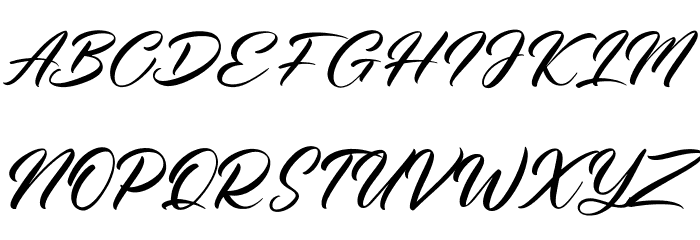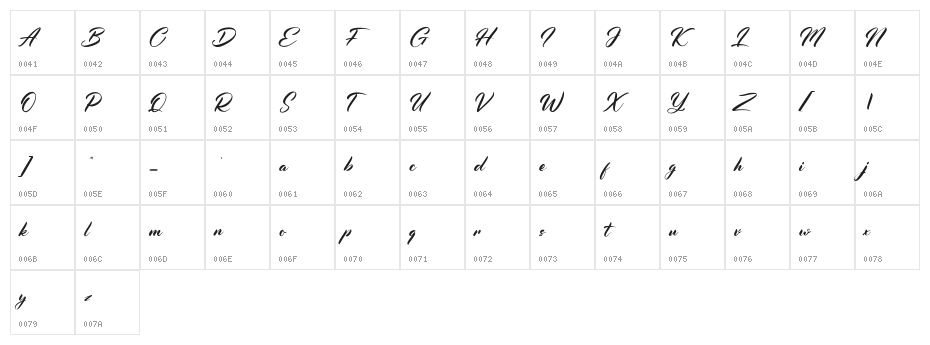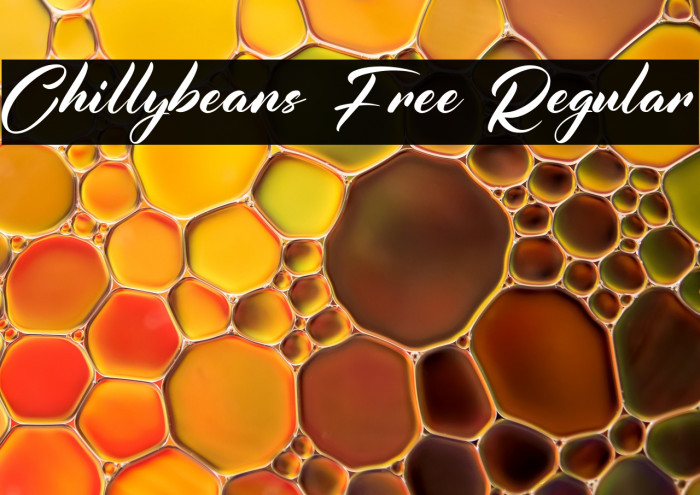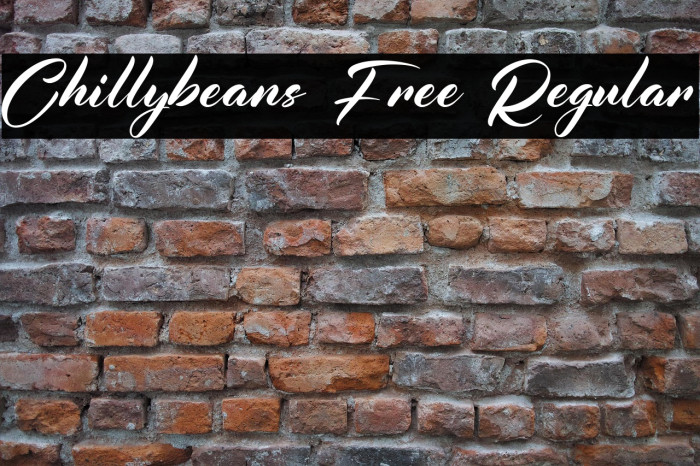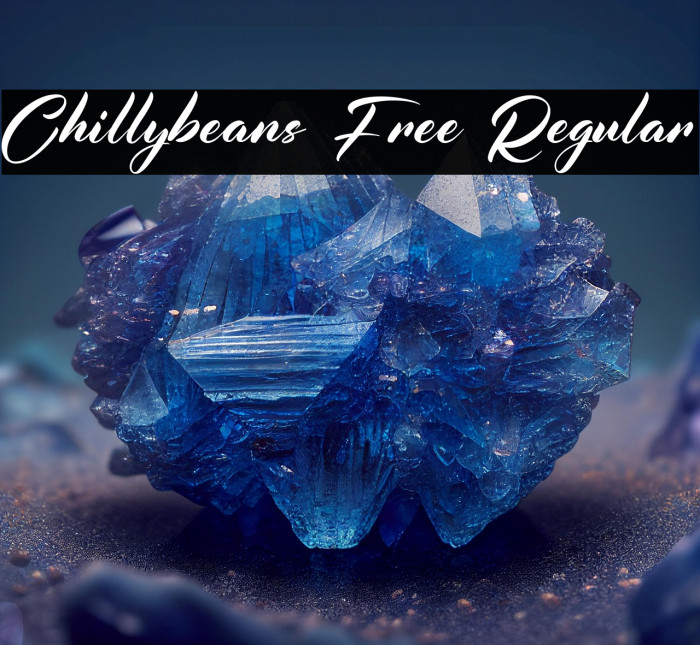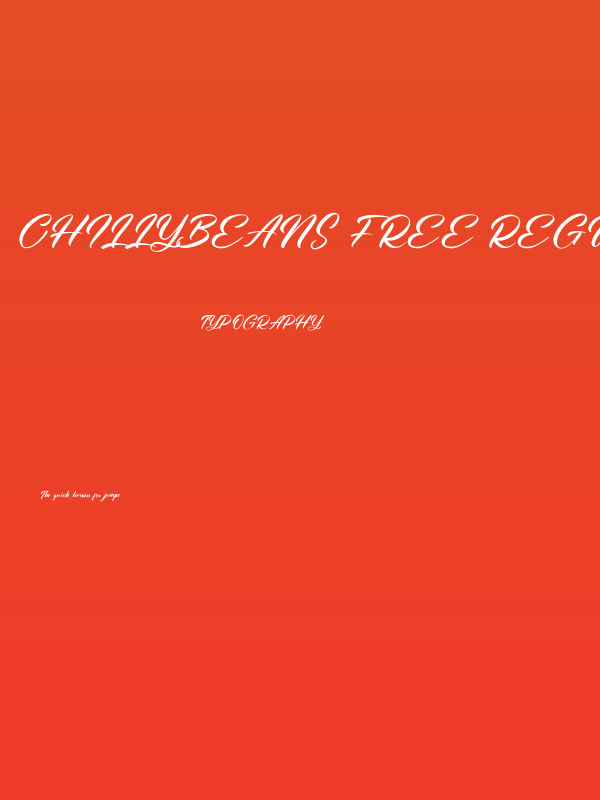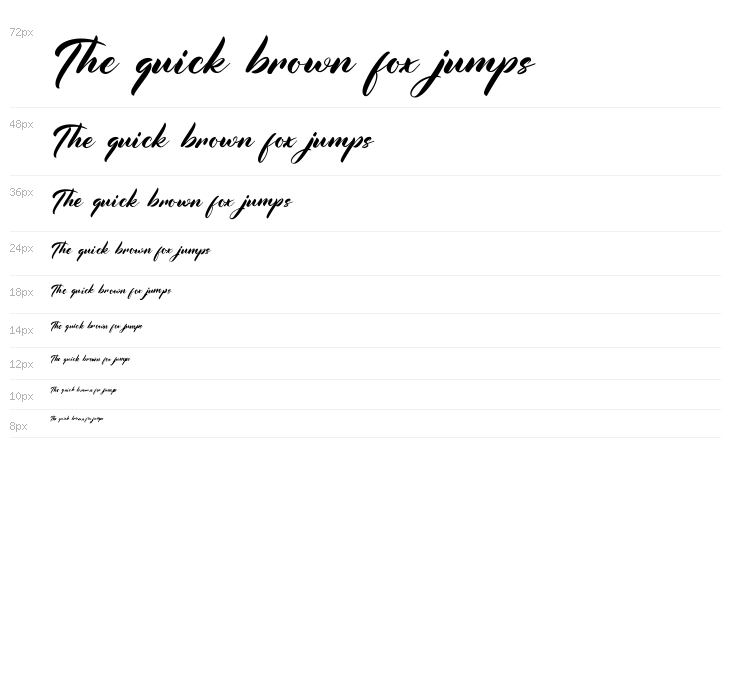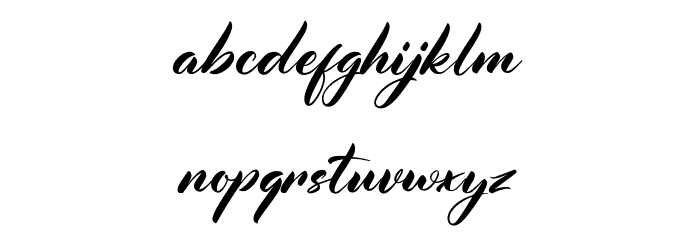
Chillybeans Free Regular Font
Chillybeans Free Regular Description
This elegant script font features a flowing, cursive style with a sophisticated flair. The characters are interconnected with smooth, sweeping strokes that create a sense of motion and grace. The uppercase letters are bold and prominent, while the lowercase letters maintain a consistent flow, enhancing readability. The font's design is reminiscent of traditional calligraphy, yet it incorporates modern elements that make it suitable for contemporary use. Its artistic curves and loops add a decorative touch, making it ideal for projects that require a personal or elegant feel.
| Proposed Projects | Ideal for wedding invitations, greeting cards, branding, and elegant logo designs. |